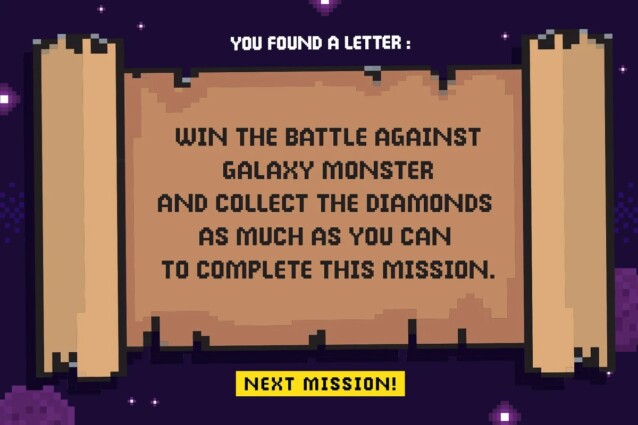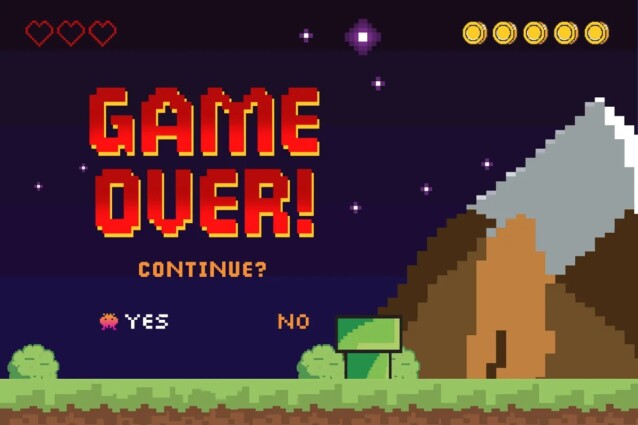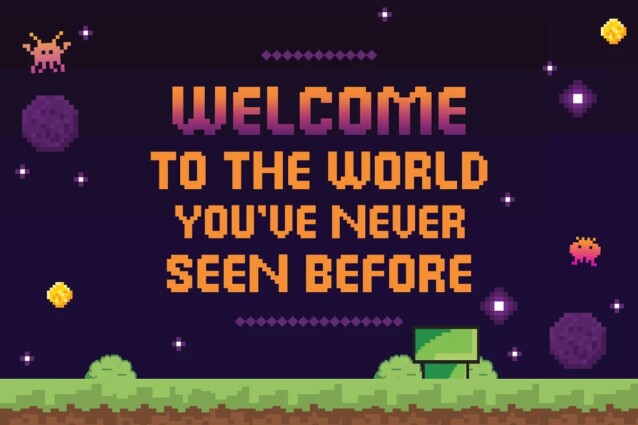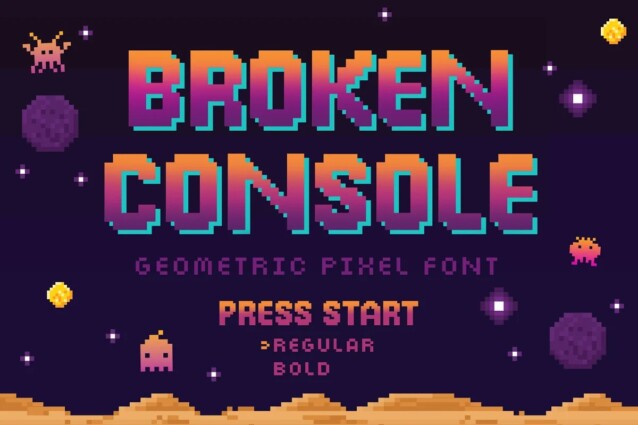
Broken Console Font is a captivating blend of futuristic, pixelated, and modern design elements that perfectly suits the gaming world. This font is an all-caps font that is suitable for the contemporary era of graphic design nowadays. This font has a distinctive look in letterforms that makes it so unique, and suitable for specific themes like Techno, Digital, Retro, New Wave, Cyberpunk, Night, Gaming, Sporty, and much more!